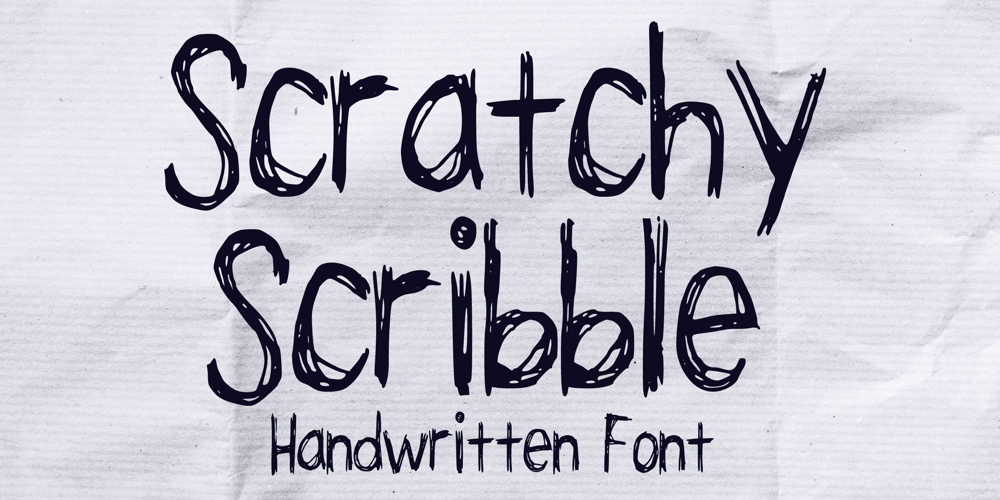
Scratchy Scribble
Scratchy Scribble font
Scratchy Scribble Font Family was designed by Gabriel Valentinus and published by Mvmet. Scratchy Scribble contains 1 styles and family package options. Scratchy Scribble is a sketchy and playful handwriting display font. It will elevate a wide range of design projects to the highest level. You can use this font for many design ideas such as stickers, t-shirt designs, amazing logo designs, magazine or book covers, comics, cartoon drawings, and many more. This font will add a super cool touch to your designs!